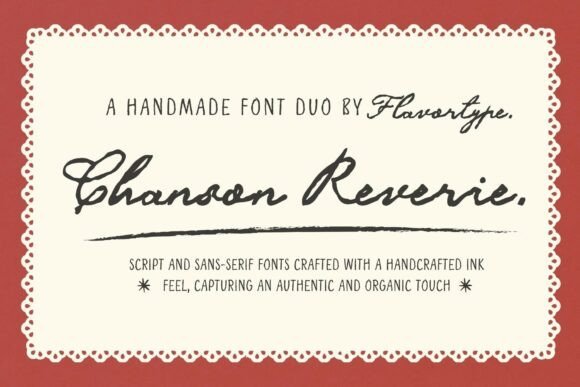
Unleash the Charm of Handwritten Moments
Have you ever received a handwritten letter or a postcard that made your heart skip a beat? The imperfections, the personal touch, and the love that goes into every scribble – it’s a feeling that’s hard to replicate with digital tools. But what if you could infuse that same warmth and character into your designs?
Enter the Chanson Reverie Font, a beautiful handmade font duo that captures the essence of handwritten moments. This charming font pair consists of a expressive script and a hand-drawn sans serif, carefully crafted to evoke a sense of nostalgia and whimsy. With its organic shapes and slightly uneven lines, the Chanson Reverie Font is perfect for adding a personal and heartfelt touch to your designs.
Whether you’re designing invitations, branding, or social media content, the Chanson Reverie Font is a valuable asset for designers who want to create memorable and engaging visuals. Its unique blend of playfulness and sophistication makes it an ideal choice for projects that require a touch of personality and warmth.
Chanson Reverie Font Key Features
- Font Family: Chanson Reverie is a unique, elegant script font that offers a range of styles, including regular, bold, and italic.
- Character Set: Chanson Reverie font includes a wide range of characters, including uppercase and lowercase letters, numbers, and punctuation marks, as well as extended characters for international languages.
- Unique Characteristics: This font features a flowing, cursive script with a vintage, romantic feel, making it ideal for creative projects, such as wedding invitations, greeting cards, and art prints.
Designer Review: Chanson Reverie Font
Overall, I think the Chanson Reverie Font is a charming and elegant choice for designers looking to add a touch of whimsy to their projects. ✨ The font’s flowing curves and soft lines evoke a sense of nostalgia and romance, making it perfect for weddings, baby showers, or any other occasion that calls for a touch of sweetness.
Here are some of the things that I think work well with this font:
- ✨ Elegant and sophisticated design that’s perfect for high-end projects
- ✨ Beautifully flowing curves that add a touch of whimsy to text
- ✨ Wide range of language support, making it suitable for projects that require multiple languages
However, I do think there are a few limitations to consider:
- ⚠️ Limited character set, which may cause issues for projects that require specialized characters
- ⚠️ Not ideal for projects that require a lot of bold or condensed text, as the font can become difficult to read
Overall, I think the Chanson Reverie Font is a great choice for designers who want to add a touch of elegance and whimsy to their projects. While it may not be suitable for every project, it’s definitely worth considering for the right type of design.
Tips for Getting the Most Out of Chanson Reverie Font
Here are some tips to help you get the most out of Chanson Reverie Font:
- Use it for creative projects that require a touch of elegance and sophistication.
- Pair it with a simple background to let the font be the focal point.
Here are some common use cases for Chanson Reverie Font:
- Anniversary and birthday cards.
- Watercolor background: Use soft, pastel colors to create a whimsical and dreamy effect.